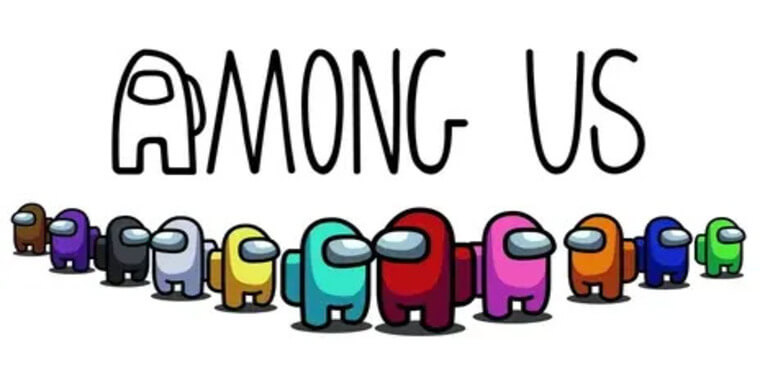
Among Us is a game where lots of people can play together. In the game, some people are Crewmates and some people are Impostors. Crewmates have to finish tasks and figure out who the Impostors are. Impostors, on the other hand, have to cause problems and get rid of the Crewmates.
The Among Us logo was probably created by hand, but there is a font called Impostograph by JoviLikesMatchas that looks very similar to it.